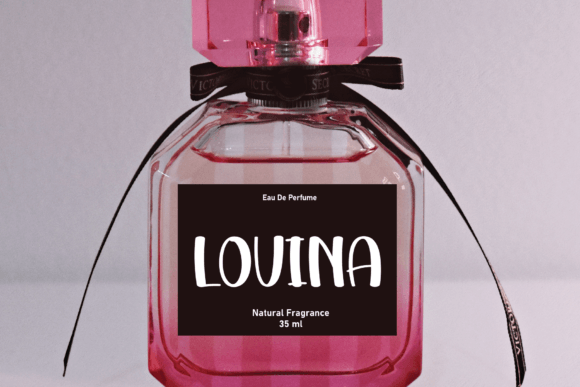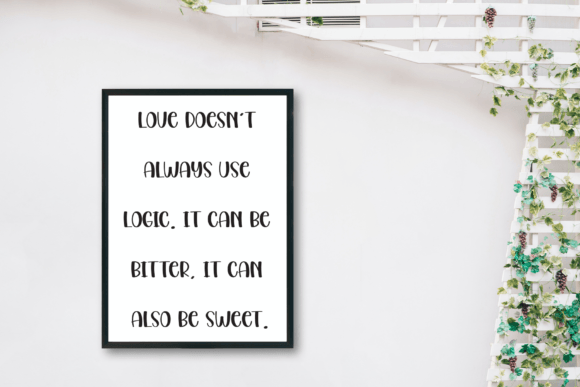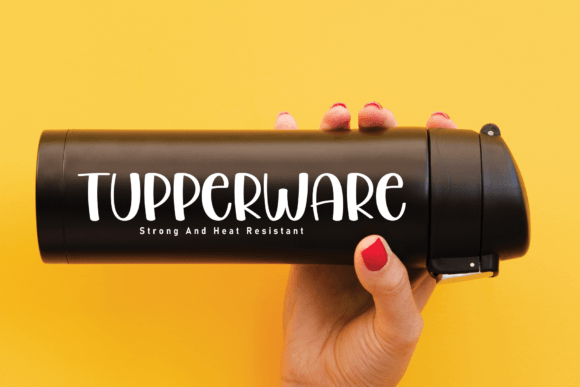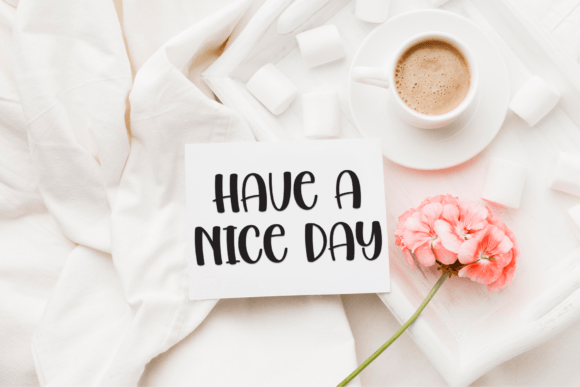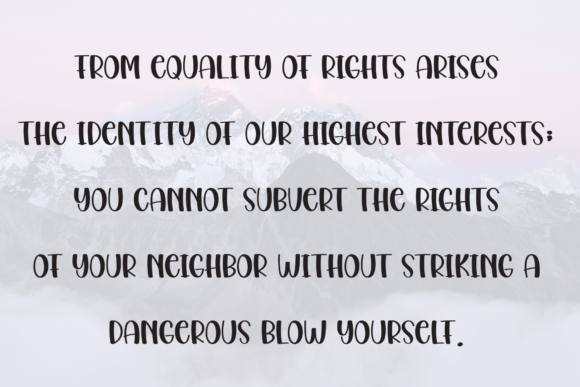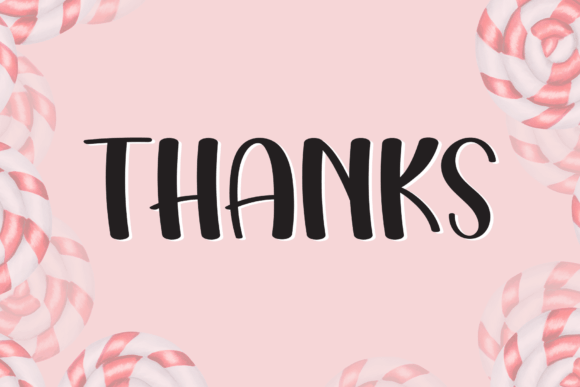
Introduction to Christmas Candies Font
this is a sweet and friendly handwritten display font.
Cute and fun, this font is ideal for writing wedding invitations, cards, or any other design that might need a fun touch .